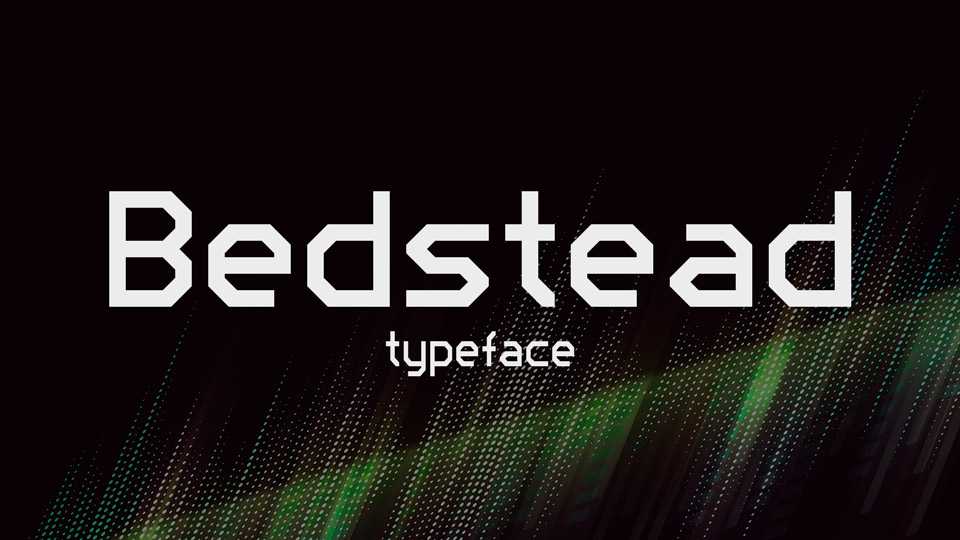
Download Bedstead font family, a monospaced typeface based on the characters produced by the Mullard SAA5050 series of Teletext Character Generators.
Designer: Ben Harris